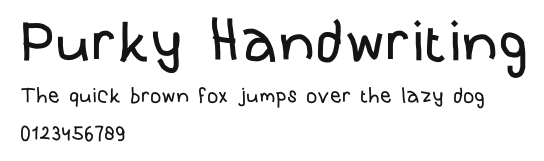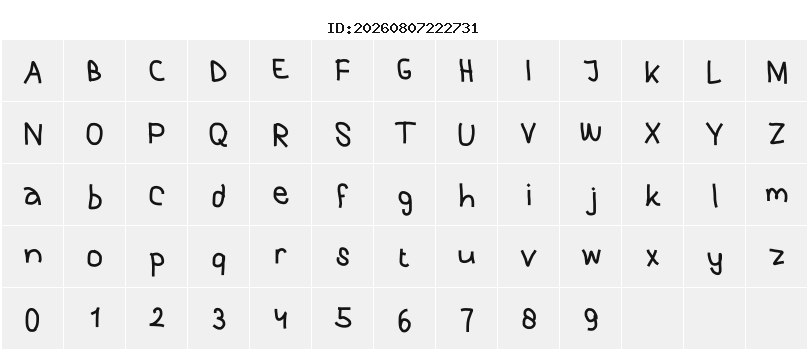
• Font Name: Purky Handwriting
• Full Font Name: Purky Handwriting
About Purky Handwriting.ttf
Purky Handwriting.ttf is a modern, elegant sans-serif font designed for ultimate readability and visual harmony. Perfect for branding, headlines, web design, and print materials.